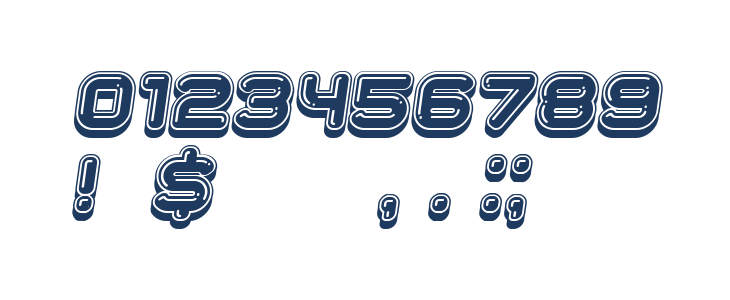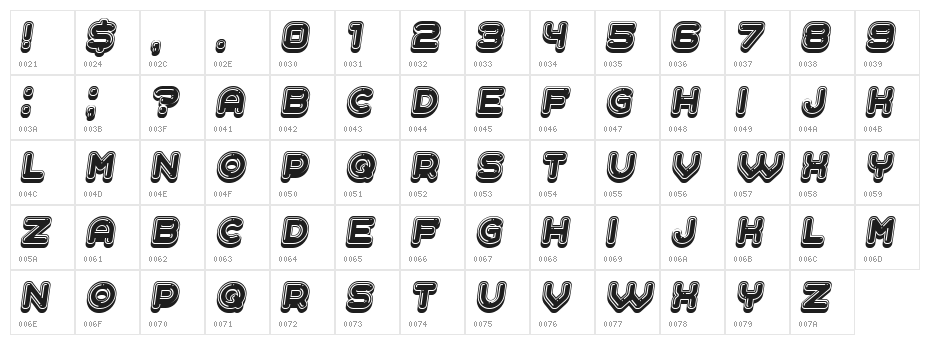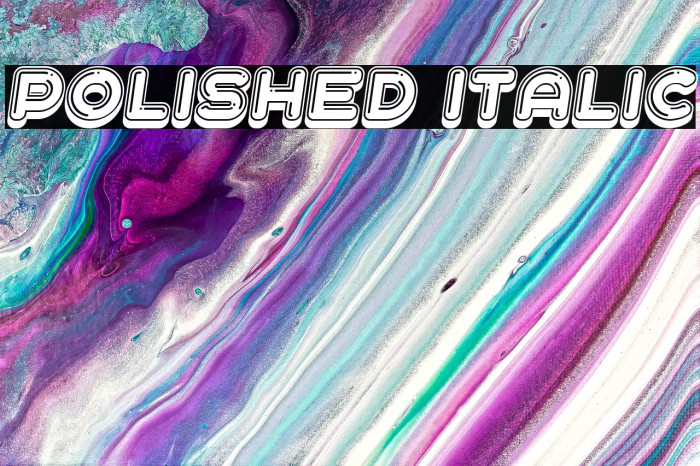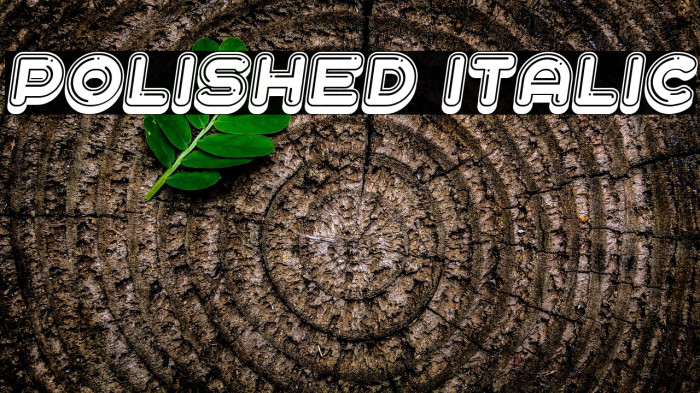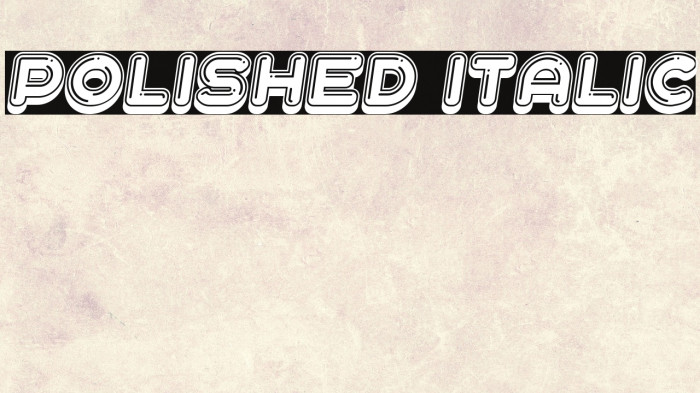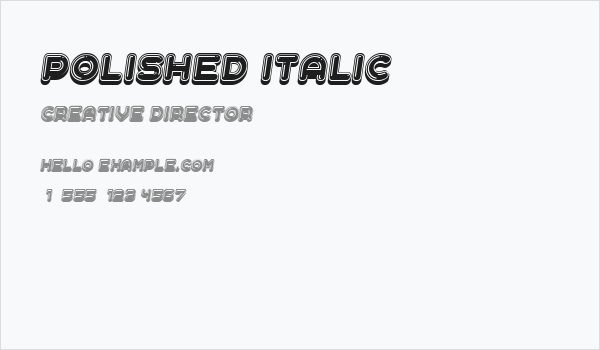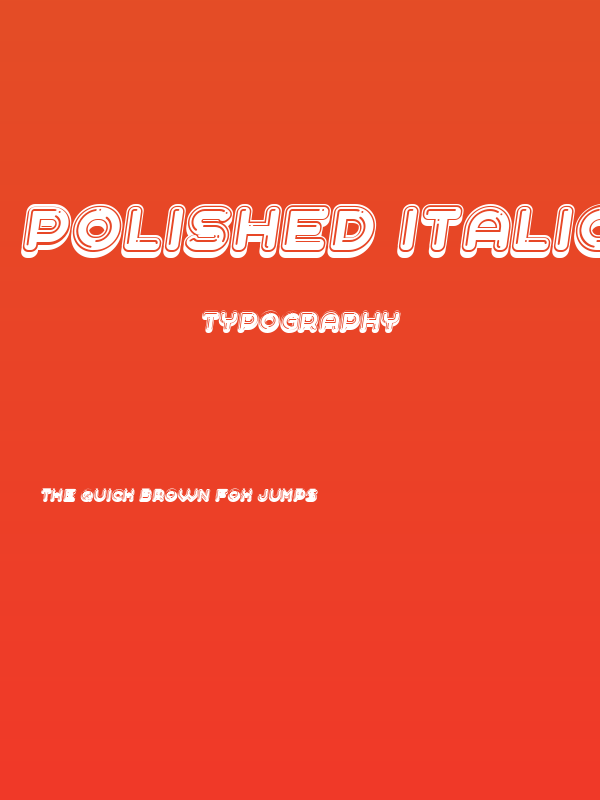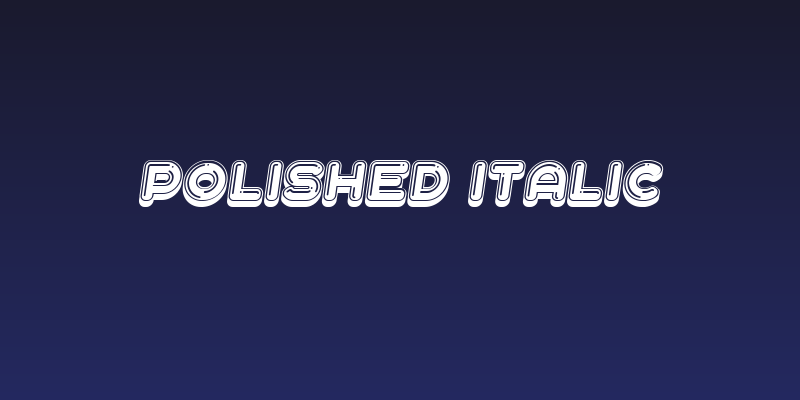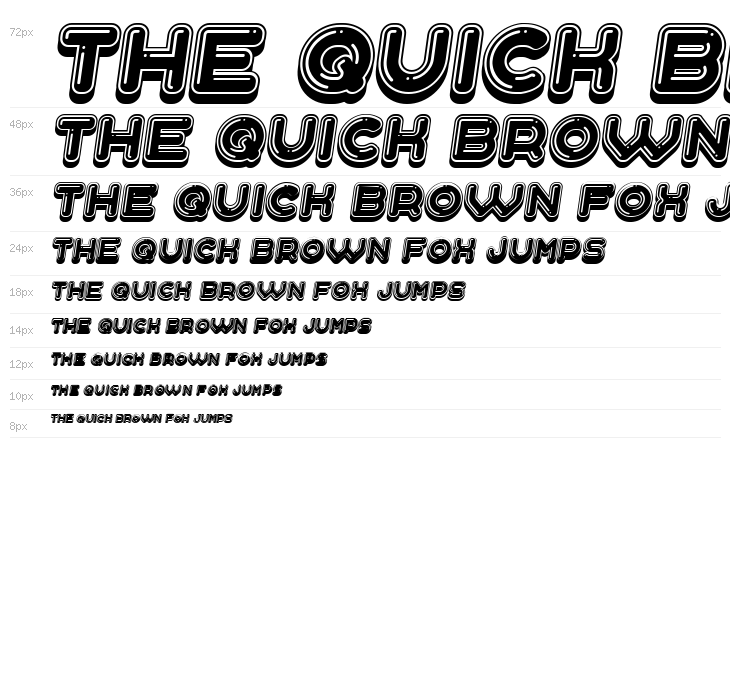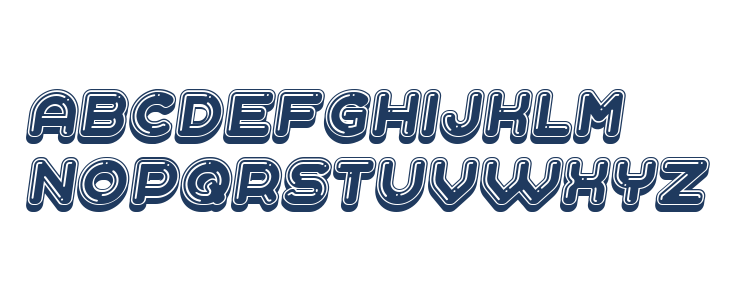
Polished Italic Font
Polished Italic Description
This font features a bold and dynamic style with a polished, italicized appearance. The characters are outlined with a thick, black border that adds depth and a three-dimensional effect. The inner strokes are slightly thinner, creating a high contrast between the bold outlines and the inner details. The font has a playful and modern aesthetic, making it suitable for eye-catching designs. The uppercase and lowercase letters maintain a consistent style, while the numbers and special characters integrate seamlessly with the overall design. The font's unique characteristics make it stand out, providing a strong visual impact.